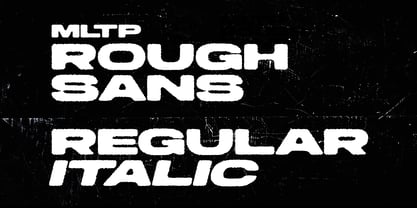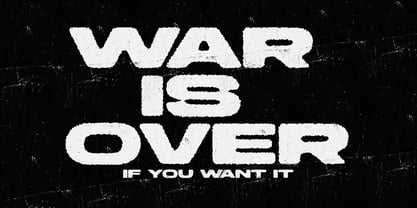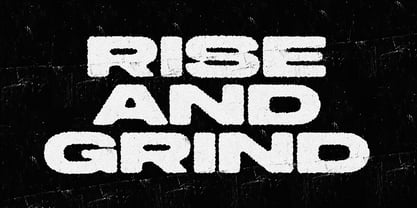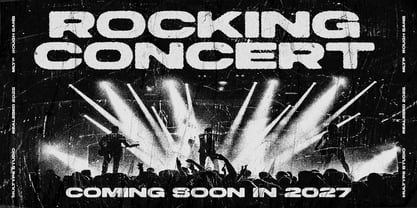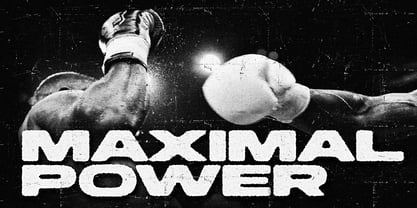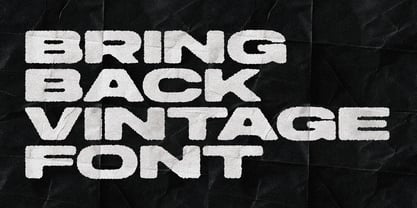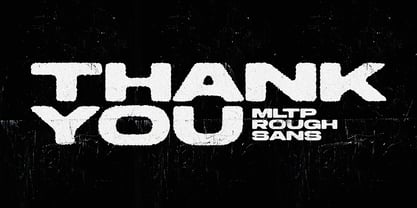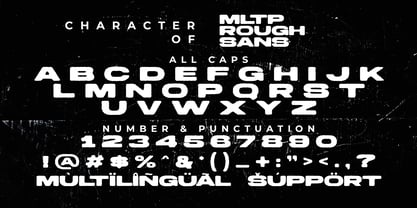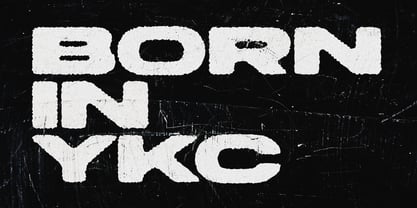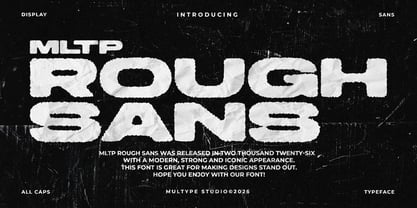
MLTP Rough Sans
by Multype Studio
The MLTP Rough Sans Font Family was designed by Mulia Yanto and published by Multype Studio. MLTP Rough Sans contains 2 styles and family package options. More about this family
MLTP Rough Sans is a bold rough sans serif display font designed with a heavy, chunky, and slightly distressed appearance. Its irregular edges, compact letterforms, and raw textured details create a strong industrial and urban personality while maintaining excellent readability.
Inspired by streetwear, sports graphics, retro posters, grunge aesthetics, and modern branding, MLTP Rough Sans is perfect for designs that need a bold visual statement. Its heavy all-caps style works especially well for logos, headlines, posters, apparel, packaging, labels, advertising, sports branding, and social media graphics.
The font includes regular & italic, uppercase letters, numerals, punctuation, and multilingual support, making it a versatile choice for designers working on both branding and display typography projects.
Use MLTP Rough Sans to create a powerful streetwear logo, gym branding, sports poster, product packaging, music artwork, merchandise, or bold advertising campaign with a raw and contemporary aesthetic.
Perfect for: Streetwear, Sports Branding, Gym & Fitness, Logo Design, Posters, Apparel, Packaging, Grunge Designs, Advertising, Music Artwork, Gaming, and Urban Branding.
Designers: Mulia Yanto
Foundry: Multype Studio